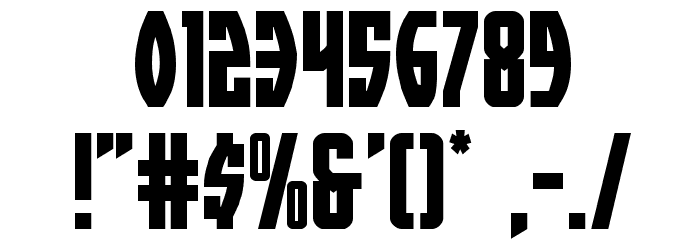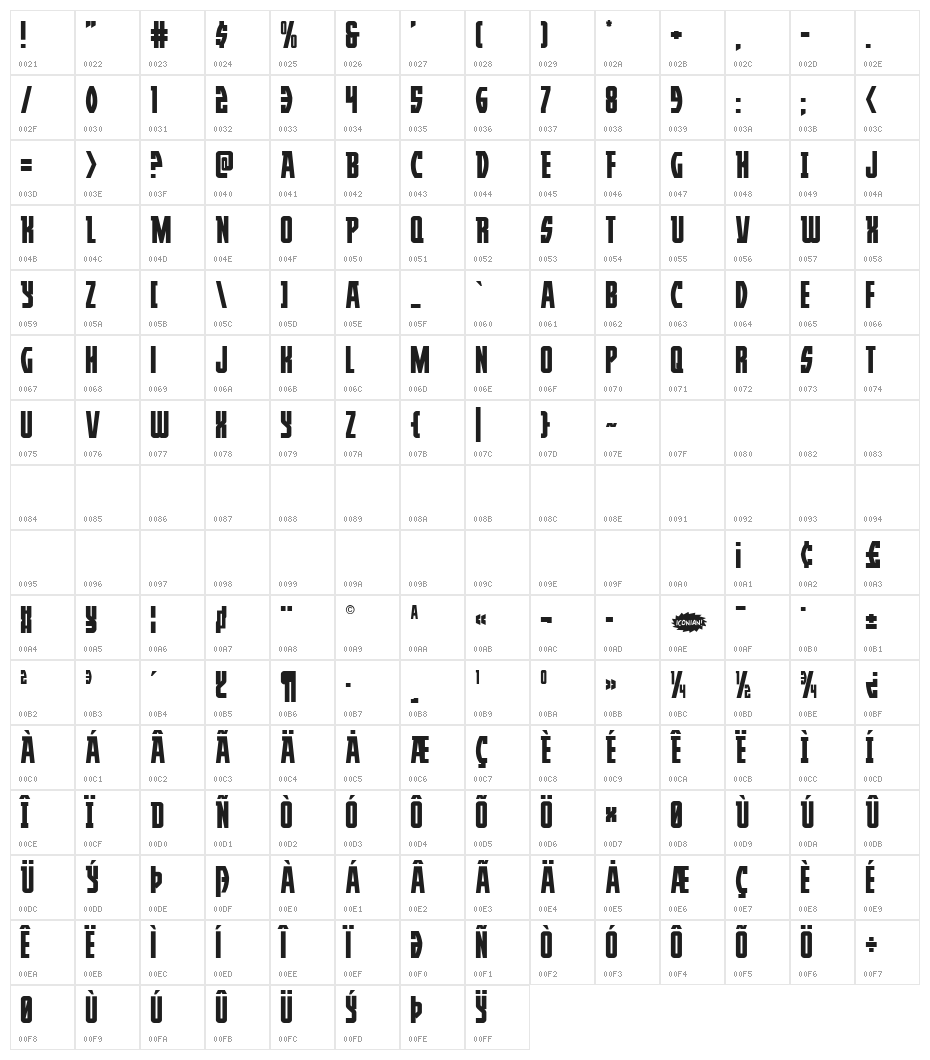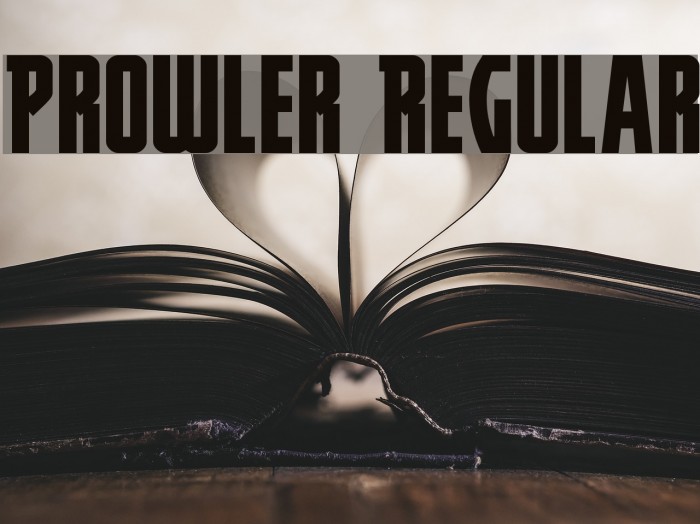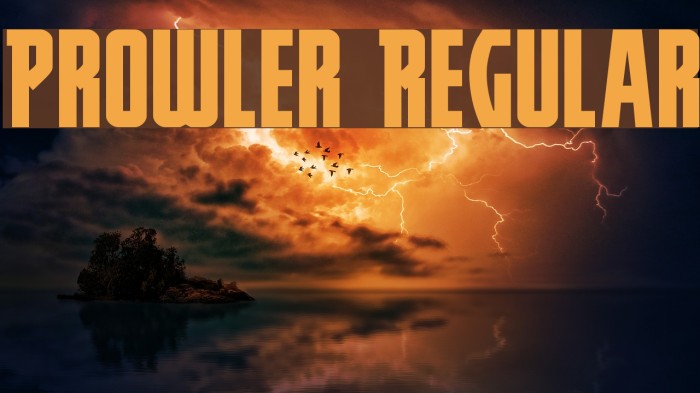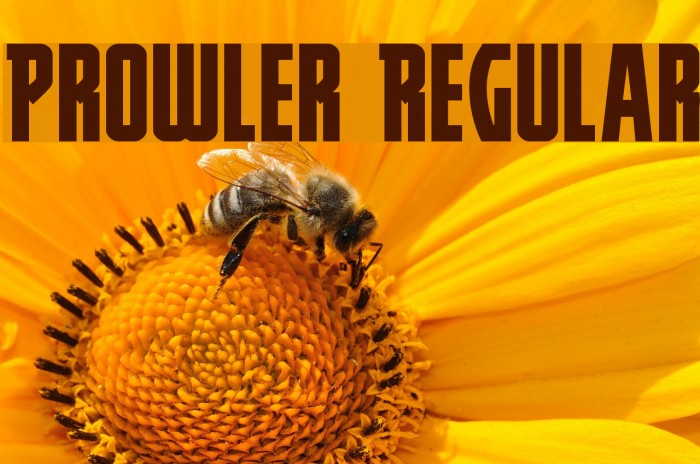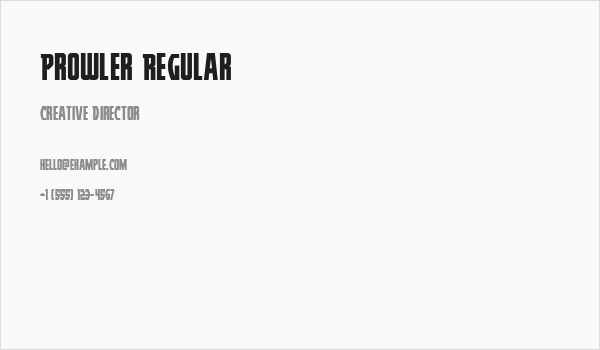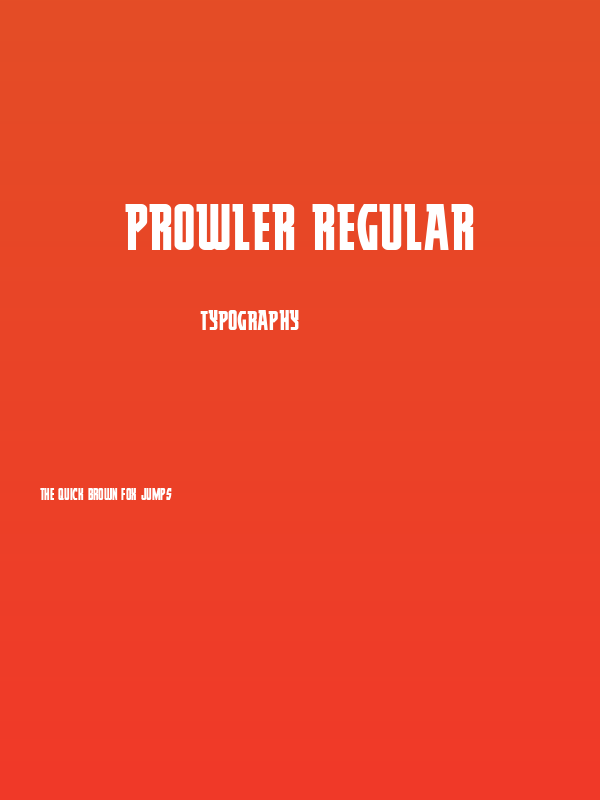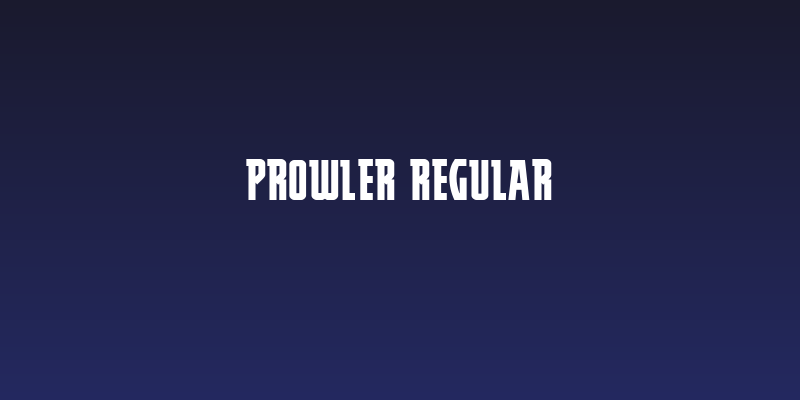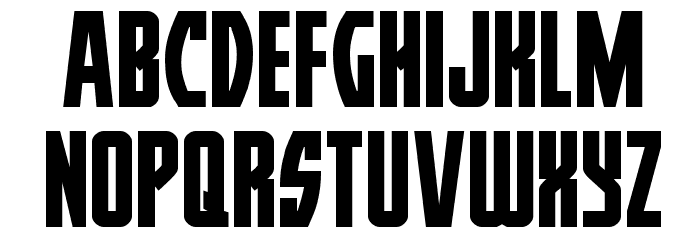
Prowler Regular Font
Prowler Regular Description
This font features a bold and striking design with a strong geometric influence. The characters are tall and narrow, giving them a condensed appearance. The angular edges and sharp corners contribute to a modern and edgy look. The uppercase letters are particularly dominant, with a consistent height and width that create a uniform appearance. The numerals and special characters maintain the same boldness, ensuring readability and visual impact. This font is ideal for making a statement, with its high contrast and distinctive style.
| Proposed Projects | Ideal for posters, headlines, branding, and any project requiring a strong visual impact. |